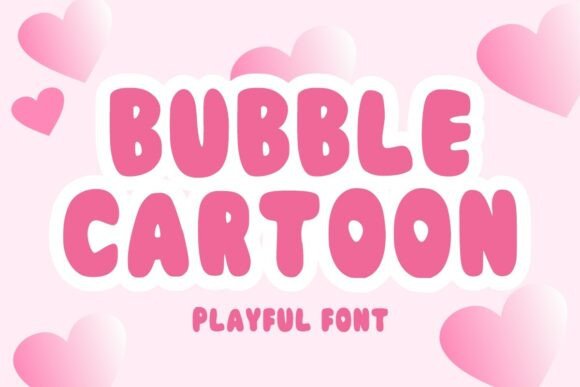
Pop into Action with Bubble Cartoon Font: The Ultimate Display Typeface
Have you ever been working on a design project, and suddenly, you’re stuck on finding the perfect font? I recall a recent experience where I was designing a birthday invitation for a client’s kid, and I just couldn’t find a font that captured the playful, fun vibe I was going for. That’s when I stumbled upon the Bubble Cartoon font, and it was love at first sight! In this article, we’ll dive into the world of Bubble Cartoon font, exploring its features, uses, and tips on how to make the most of this amazing display typeface.
What Makes Bubble Cartoon Font So Special?
Bubble Cartoon font is a heavy, rounded, and full-of-personality typeface designed to mimic the inflated look of classic comic book lettering. Its thick strokes and soft corners radiate a sense of warmth and approachability, making it perfect for engaging younger audiences or anyone with a young heart.
- ✨ Perfect for kid-centric designs: Bubble Cartoon font is a must-have for designers working in the fun, vibrant worlds of animation, party supplies, and kid-centric digital content.
- ✅ Versatile and adaptable: Use it for sticker design, birthday invitations, candy packaging, and more!
- 🎉 Add a pop of fun: With its unique, squishy look, Bubble Cartoon font is sure to add a touch of whimsy to any design.
What I Love About Bubble Cartoon Font
- ✨ Unique and eye-catching: The Bubble Cartoon font stands out from the crowd with its distinctive, inflated look.
- ✅ Easily legible: Despite its playful design, the font remains clear and easy to read.
- 😊 Evokes emotions: The warm, rounded shapes of the letters evoke a sense of friendliness and approachability.
While Bubble Cartoon font is an amazing display typeface, there are a few things to keep in mind:
- ⚠️ Not suitable for body text: Due to its bold, playful design, Bubble Cartoon font is best used for headlines and titles.
- 🤔 May not work well in small sizes: The font’s unique features may get lost when scaled down; use it in larger sizes for maximum impact.
A Practical Guide: Using Bubble Cartoon Font in Your Designs
- Choose a bright, fun background or texture to complement the font.
- Experiment with the font’s OpenType features, such as glyphs and stylistic alternates, to add more personality to your design.
- Add a bold white outline or bright inner shadow to give the font a 3D “sticker” effect.
- Use the font’s built-in glyphs and stylistic alternates to create unique, customized text.
- Experiment with layer blending modes and effects to achieve a 3D, sticker-like effect.
- Use the font for headings and titles to add a playful touch to your document.
- Experiment with Word’s built-in text effects, such as shadows and outlines, to enhance the font’s appearance.
If you love the Bubble Cartoon font, you might also enjoy these similar typefaces:
- Comic Sans: A classic, playful font with a similar comic book feel.
- Baloon: A fun, rounded font with a similar inflated look.
- Zebulon: A bold, whimsical font with a similar sense of playfulness.
- Komika: A comic book-inspired font with a similar bold, adventurous feel.
The Designer Inspiration Behind Bubble Cartoon Font
The Bubble Cartoon font was inspired by the classic comic book lettering of the 1980s and 1990s. The designer, who wanted to create a font that captured the playful, fun spirit of childhood, drew inspiration from beloved cartoons and comics. The result is a font that’s both nostalgic and fresh, perfect for designers looking to add a touch of whimsy to their work.
| Font Name | Bubble Cartoon Font |
| Author | Infinity art Studio |
| What is the best use for Bubble Cartoon font? | Bubble Cartoon font is perfect for kid-centric designs, such as sticker design, birthday invitations, and candy packaging. |
| Can I use Bubble Cartoon font for body text? | No, Bubble Cartoon font is best used for headlines and titles due to its bold, playful design. |
| How do I add a 3D effect to Bubble Cartoon font? | Add a bright inner shadow or a bold white outline to give the font a 3D “sticker” effect. |
| Is Bubble Cartoon font suitable for digital use? | Yes, Bubble Cartoon font is perfect for digital use, especially in kid-centric digital content, animation, and party supplies. |